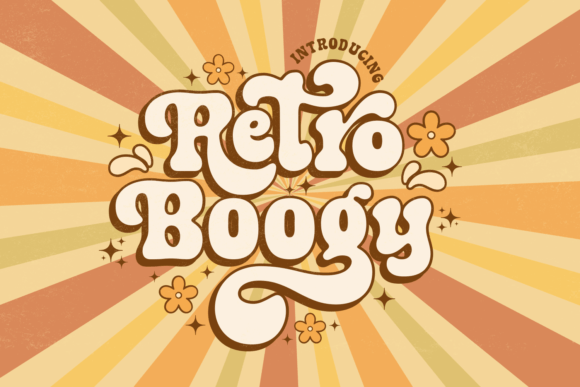
Introducing Retro Boogy Font, a captivating and unique serif font that encapsulates the essence of vintage and boogie aesthetics. Created by Dani from 7NTypes, this retro-themed font combines the classic charm of serif typography with a groovy twist, making it the perfect choice for your creative designs.
Get ready to transport yourself back to the bygone years with Retro Boogy Font. Inspired by the boogie era and disco music, this font exudes excitement and cheerfulness. Each letter features elegant and dramatic curves, capturing the true essence of retro style. With Retro Boogy, your designs will stand out from the crowd and evoke a sense of nostalgia and fun.
But what truly sets Retro Boogy apart are the decorative swashes that adorn each letter. These swashes add a touch of artistic flair and luxury, allowing you to create captivating headlines and titles with visually appealing details. Whether it's a poster, packaging, film title, or any other creative project, Retro Boogy Font will effortlessly elevate your design and make it visually striking.
Not only does Retro Boogy Font bring the nostalgia of past eras, but it also maintains a modern and captivating aesthetic. Its versatility allows it to be used for various design purposes. Let your imagination run wild and create stunning visuals that leave a lasting impression on your audience.
With Retro Boogy Font, you don't just get a font for Christmas; you get a font that adds personality and character to your designs. Its retro, groovy, and vintage characteristics make it the perfect choice for those who want to stand out and make a statement.